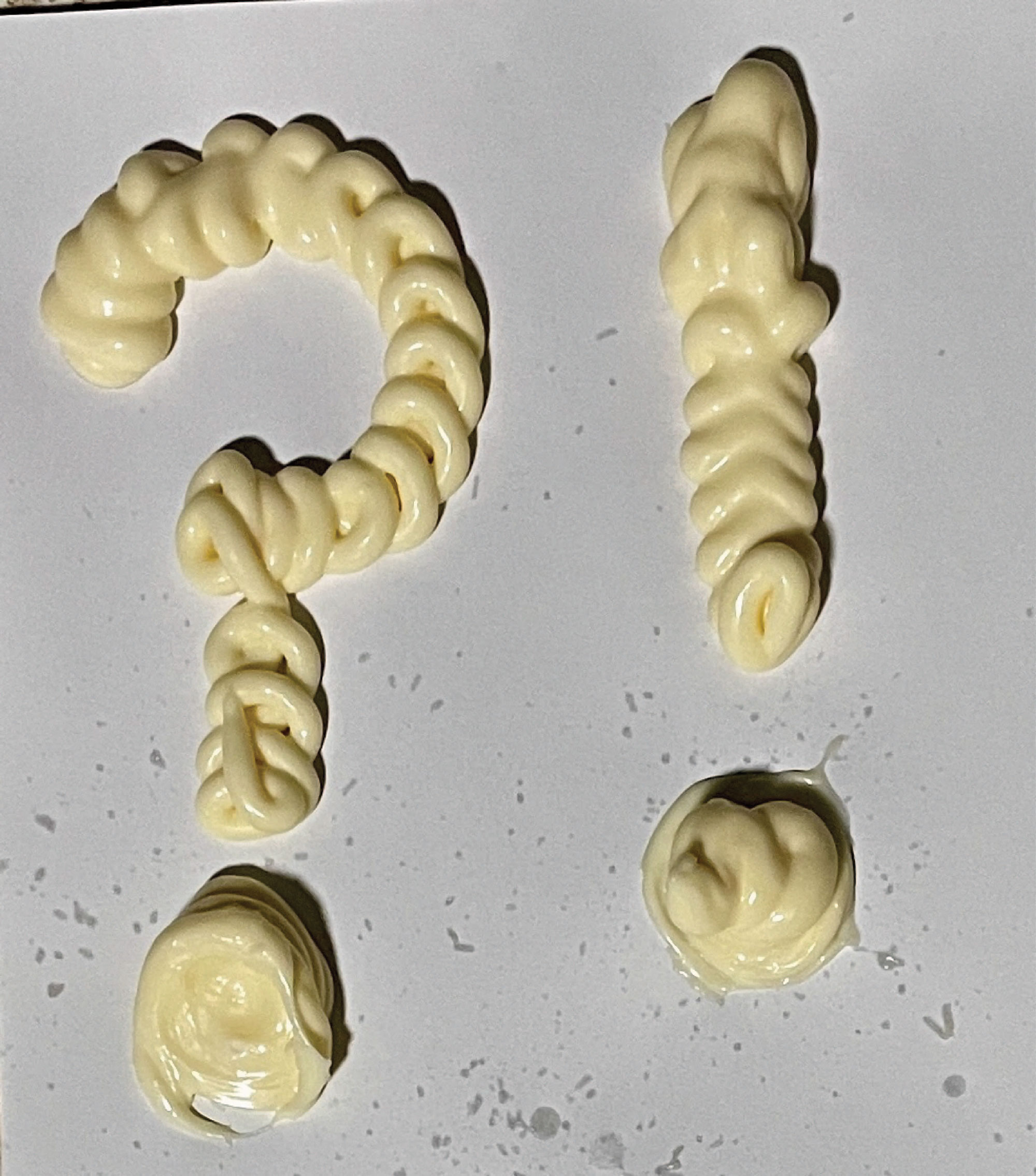
Cheeky Mayo is a unique typeface created from mayonnaise, it was inspired by the lively atmosphere of High Street Peckham's Burger King. Influenced by the playful magnetism of the iconic logo, the font aims to capture the essence of what happens inside the restaurant. My goal was to design something that not only reflects the building's appearance but also embodies the spirit of Burger King. With Cheeky Mayo, I wanted to convey the distinct experience of working in fast food, capturing the energetic and lively character that is equivalent with the brand.